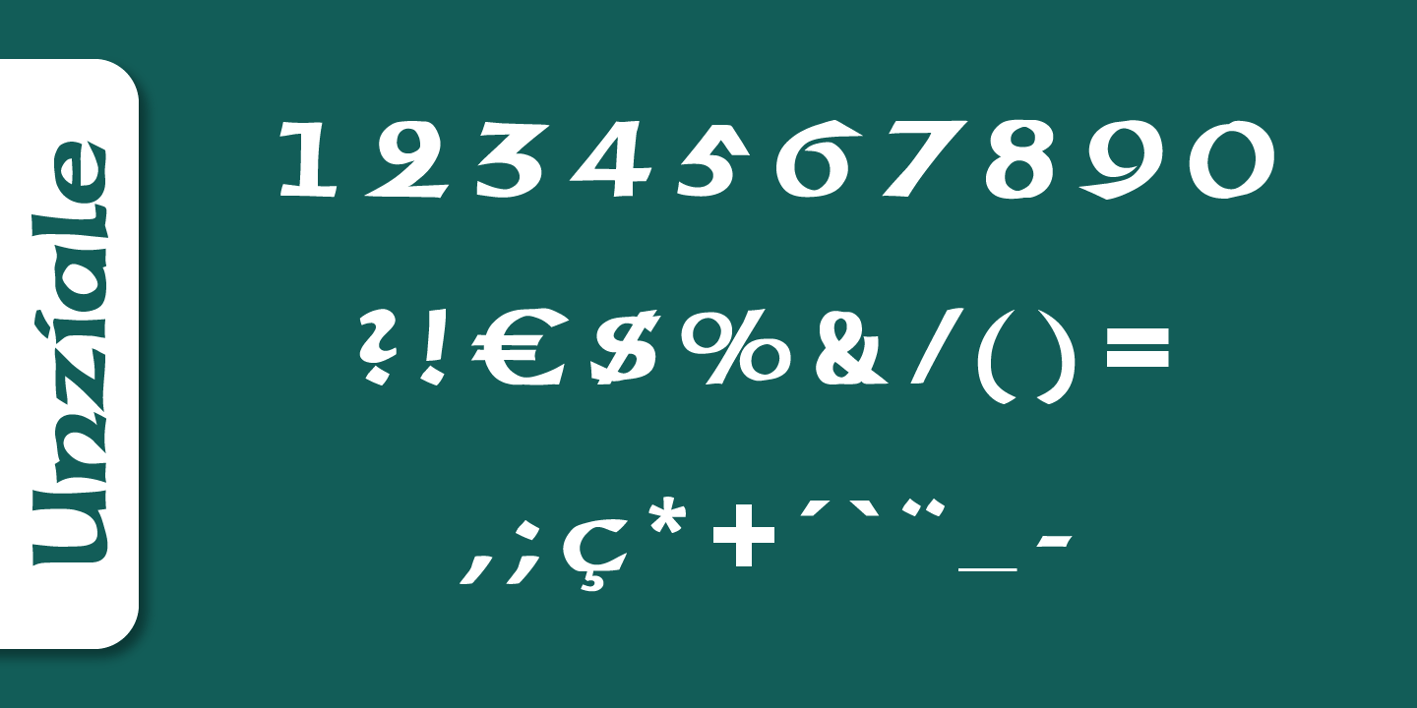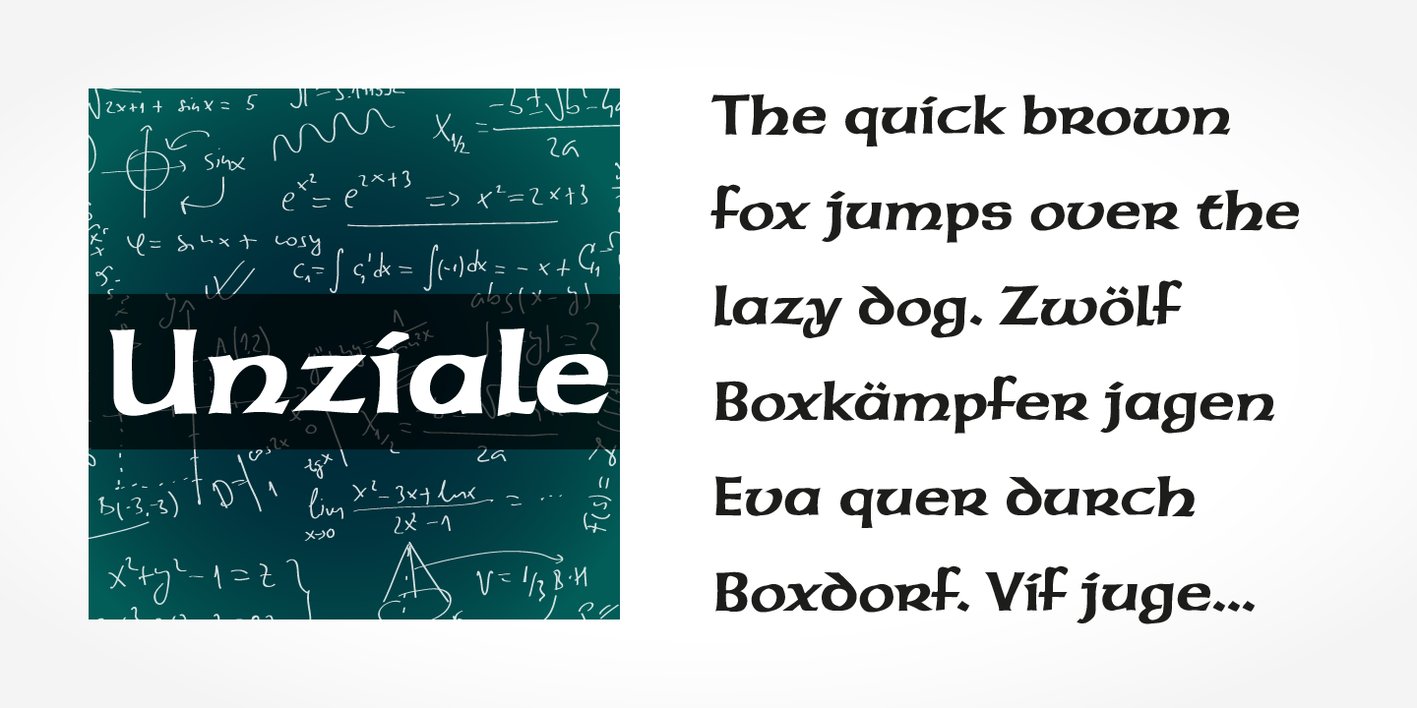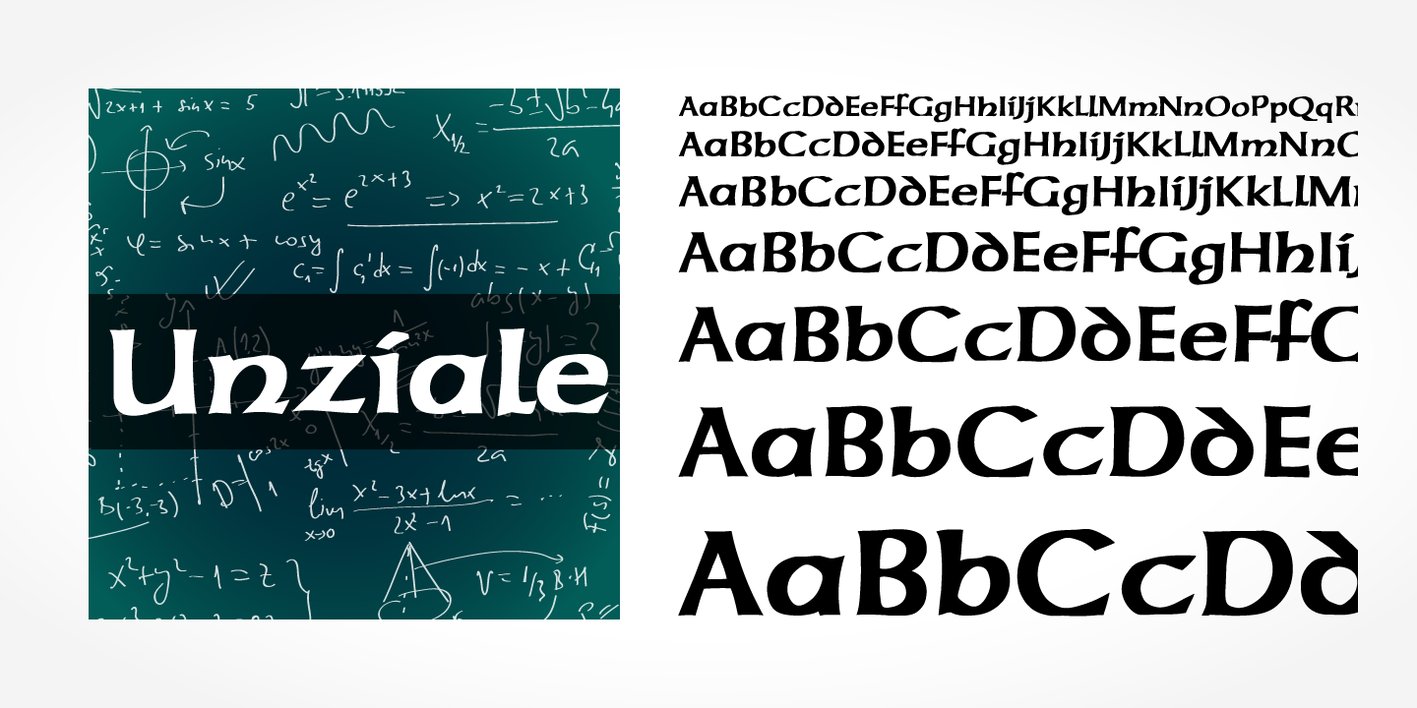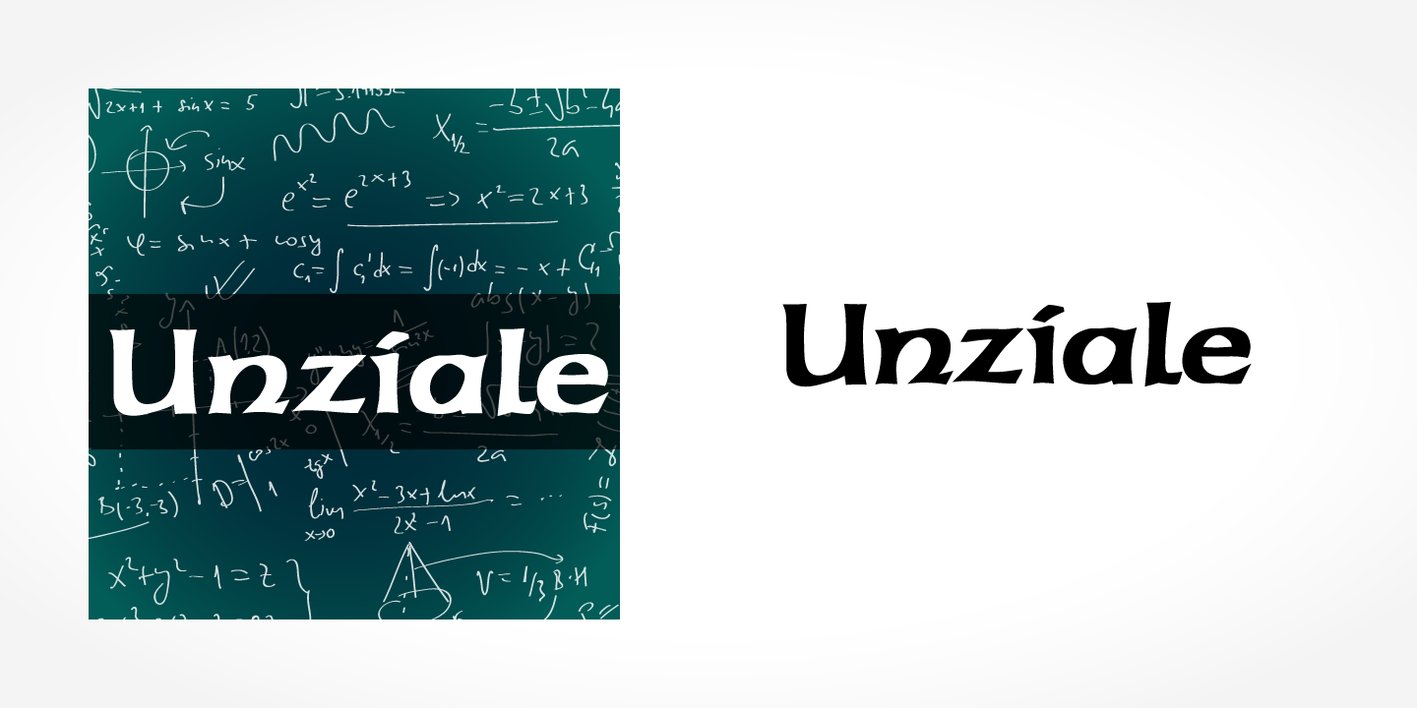
Unziale Font
Unziale Font is perfect for historical documentaries, medieval-themed designs, manuscript reproductions, calligraphy projects, religious publications, ancient history museums, fantasy game materials, vintage book covers, ecclesiastical branding, and traditional ceremonial invitations.
What makes Unziale Font so exciting is its authentic connection to centuries of written heritage and its masterful recreation of ancient scribal traditions. This historically-inspired typeface features distinctive uncial letterforms with characteristic rounded shapes and traditional stroke variations that immediately transport viewers to medieval monasteries and illuminated manuscripts. The font's classical construction and timeless elegance create an instant sense of historical authenticity and scholarly gravitas, making it ideal for projects that need to convey wisdom, tradition, and cultural continuity across generations.
The Unziale Font family typically includes multiple historical variations and weights, often featuring standard uncial forms alongside half-uncial and decorated versions. Traditional calligraphic font families frequently offer extensive character sets including historical ligatures, period-appropriate punctuation, and ornamental elements that enhance the authentic manuscript aesthetic and provide designers with comprehensive historical typographic options.
The cultural significance of Unziale Font makes it particularly valuable for educational institutions, religious organizations, and cultural preservation projects where historical accuracy and respectful representation are paramount. Academic publishers and museum curators will find this font especially effective for materials requiring scholarly credibility and historical authenticity.
What distinguishes Unziale Font is its ability to bridge ancient traditions with contemporary design requirements. This unique characteristic makes it suitable for modern applications that honor historical precedents while meeting current readability and accessibility standards.
Professional designers recognize that Unziale Font brings invaluable historical dimension to projects across industries including education, publishing, entertainment, and cultural heritage. Its authentic character and scholarly appeal make it essential for projects requiring genuine historical representation and academic legitimacy.
The meticulous historical research behind Unziale Font ensures faithful representation of ancient scribal practices while delivering the technical quality that contemporary design projects demand.